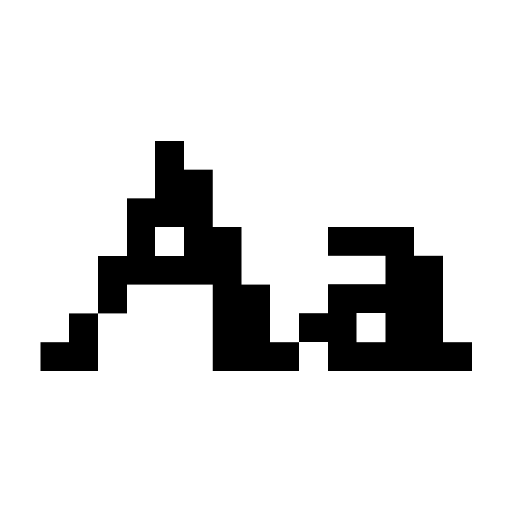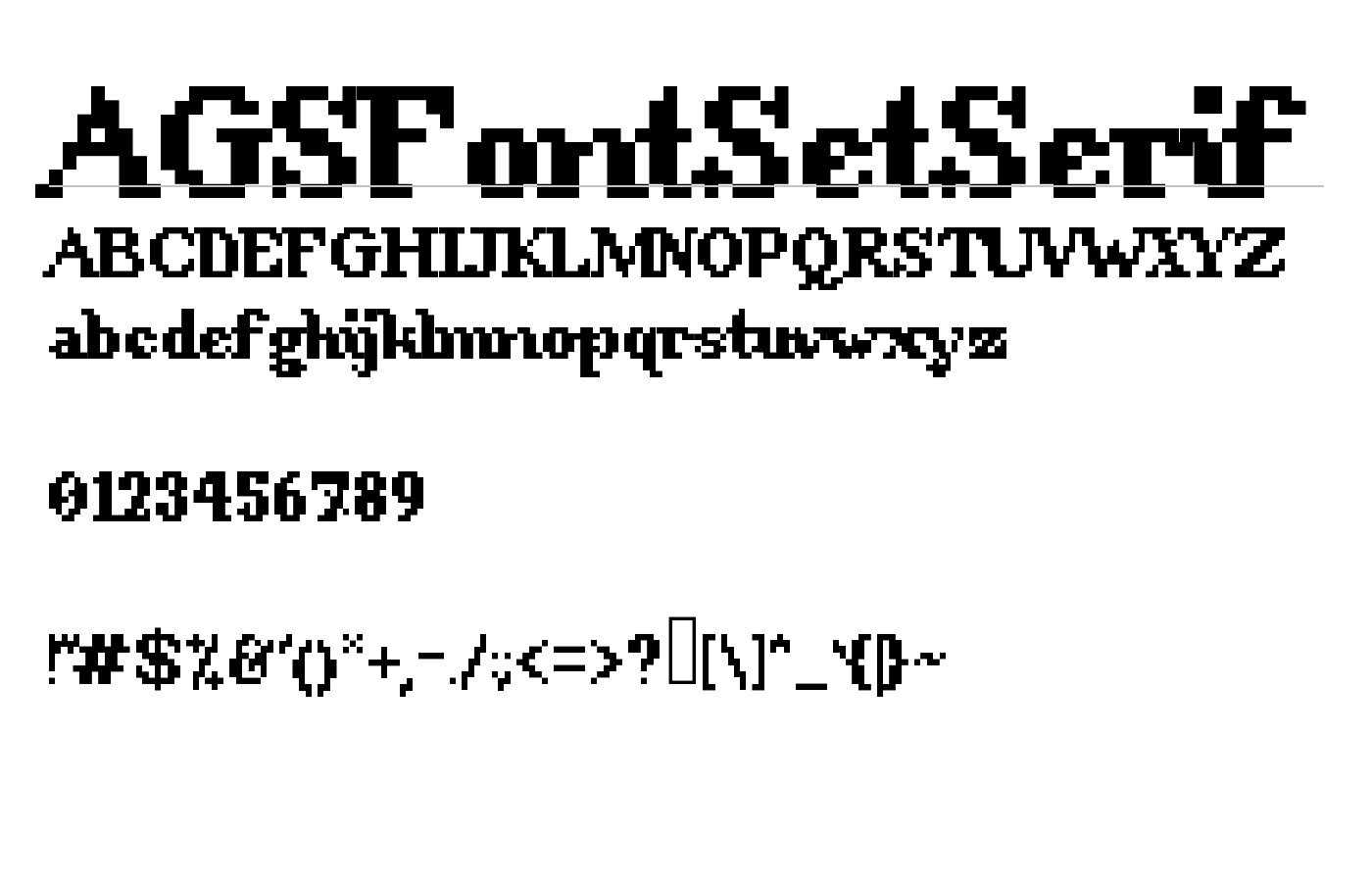
AGSFontSetSerif is a pixelated serif font that combines classic serif details with a blocky, digital appearance, giving it a distinctive retro-tech vibe. Its strong contrast between thick and thin strokes and sharp-edged serifs make it stand out, ideal for designs that want to evoke both tradition and modern digital aesthetics. This font works well in video game graphics, tech branding, or novelty headlines where a fusion of vintage serif charm and pixel art style is desired.
AGSFontSetSerif Font
About AGSFontSetSerif Font